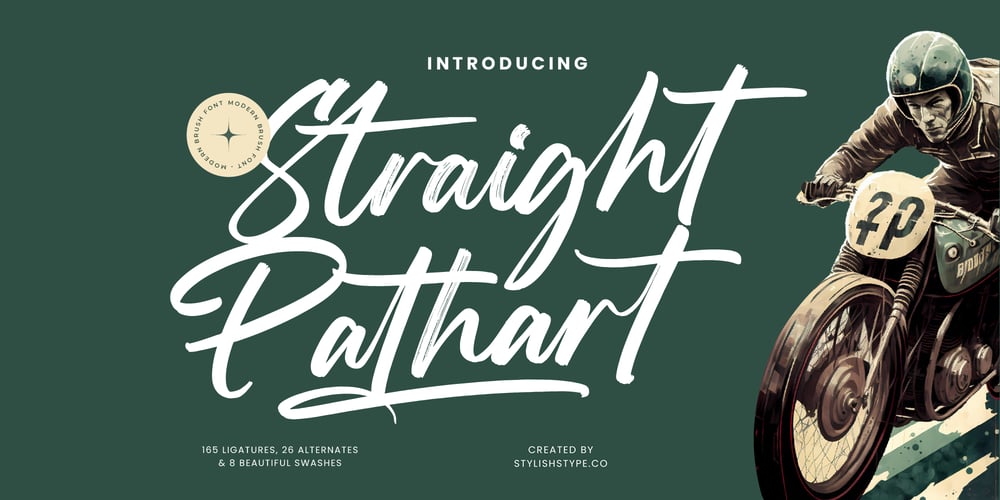
Straight Pathart
Straight Pathart Font Family was designed by Heru Utama Putra and published by Stylishtype Studio. Straight Pathart contains 2 styles and family package options. Straight Pathart – Modern Brush Font , from Stylishtype, Suitable for any projects such as: logos, branding projects, homeware designs, product packaging, mugs, quotes, posters, shopping bags, t-shirts, book covers, name card, invitation cards, greeting cards, label, photography, watermark, special events, and all your other luxury and beautiful projects that need a Luxury Script taste.